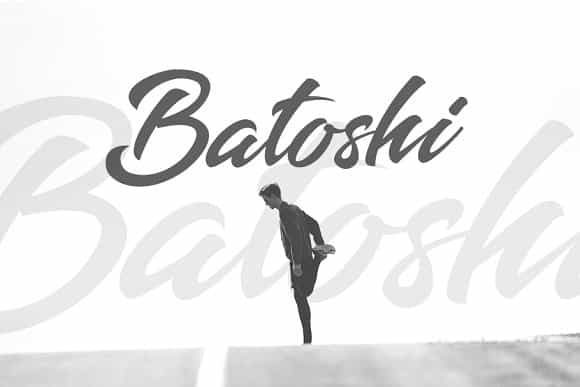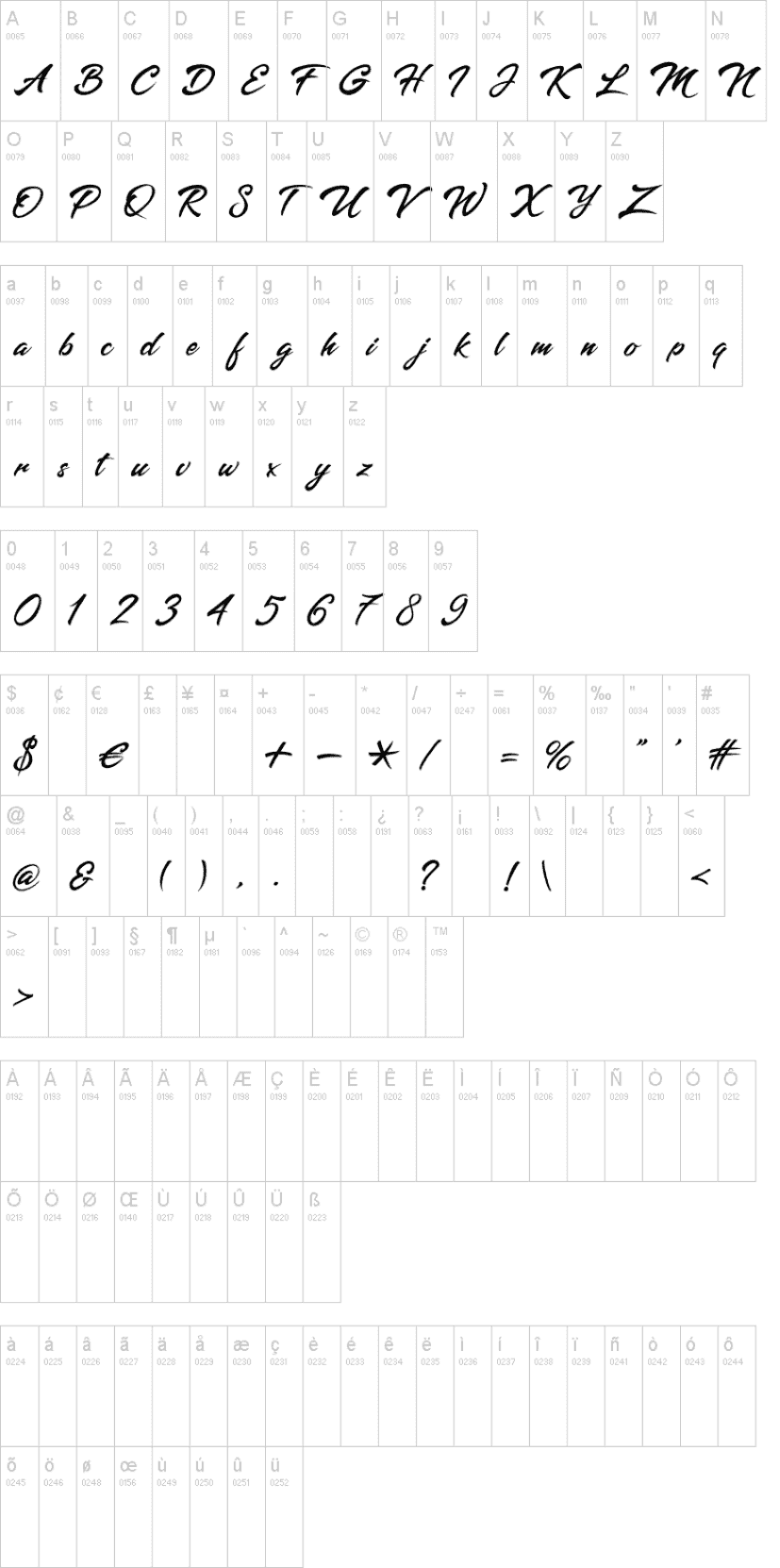
Batoshi is a Brush font which has a very high quality and it is developed and contributes by hustletter for the purpose of personal use only. This free version supports all letters of the alphabet in both capitalised and lower-case form, along with a few character accents as well.